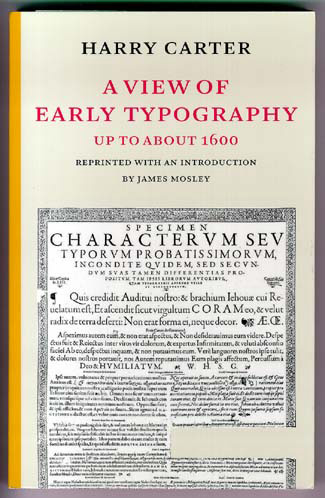
One of the clearest, most informative books about early typography is back in print.
Not many books with scholarly footnotes, and a title that begins "A View of...", would be considered must-have resources for the modern graphic designer or type user. After all, how much of the minutiae of cutting metal punches in Renaissance France or Reformation Germany will come in useful when you're faced with a deadline for that product catalog or annual report? But Harry Carter's book, "A View of Early Typography: Up to About 1600," recently republished by Hyphen Press, is the exception. If you care anything about the history -- the context -- of the craft we all practice, then you'll be richly rewarded by reading this book.
Carter deals quietly and calmly with his subject, in a written voice that must recall his spoken voice (the five main chapters were originally given as lectures at Oxford in 1968) and that is direct, clear, and utterly un-fussy. I have no idea what Harry Carter was like in person (he died in 1982), but I can imagine sitting comfortably in a room with him and -- apart from the necessary apparatus of a slide presentation (the talks were illustrated, as the book is) -- simply listening to him talk.
Title page of the original edition
His subject is the first hundred and fifty or so years of making and using movable type. More specifically, he is interested in how you can tell what types were used in early books, who cut them and cast them, and what that can tell us about who they were and where they came from. Carter is looking at a very specific set of crafts, but he puts the story in the context of its time and place: western and central Europe at a moment of intense cultural revival, political striving, and violent religious confrontation. Being a printer or a punchcutter or a type founder in those days was not necessarily a safe job.
"The Face Comes Loose From the Metal"
Carter's opening chapter, "The Technicalities of Type," starts off with the famous first line, "Type is something that you can pick up and hold in your hand." At the time he wrote, before digital type and when phototypesetting was just becoming popular, this was already a point that he felt it was important to make. Speaking of those who study old books, he went on: "Bibliographers mostly belong to a class of people for whom it is an abstraction: an unseen thing that leaves its mark on paper. For their convenience it has long been the practice to talk about a typeface, meaning, not the top surface of a piece of type, nor even of many pieces of assembled type, but the mark made by that surface inked and pressed into paper." In the following pages, Carter explains how type was actually made, not just mechanically but historically, and how the various tasks involved got divided up, and later brought together again.
One of his points is that type foundries, which we think of as "where type gets made" and which we have morphed into today's digital foundries, started out as a bunch of separate jobs being done by different people in several businesses. I have never read a better explanation of what it meant to cut punches, to use them to make matrices (impressions of what's carved on the end of the punch), and to put each matrix into an adjustable mould and use that to cast type. It wasn't until the middle of the 16th century, according to Carter, that these tasks started to be done under the same roof. There was a lively trade in punches, and in matrices, as well as in finished type, across much of Europe. In this process there was also a great deal of room for variation, intentional or otherwise, which is how a popular type design might spread across several countries, but the "same" typeface might look different when used by each city's printer.
Early French types, including a New Testament in French rather than Latin.
Fewer Forms, More Readers
Carter's next two chapters, "Diversity of Letter-forms in Print" and "The Establishment of Common Idioms," explain the enormous variety in the styles of handwriting then current -- often different styles written by the same person for different purposes -- and how this first got translated into a bewildering variety of type styles, then later got narrowed down into a few standard styles (partly as a result of the centralization of type-founding) used for standard purposes. It wasn't just a matter of "blackletter in Germany, roman and italic in Italy"; in an age when much of the printed matter had a propaganda purpose, or at least a few political implications, the style of type in which it was presented made a difference.
The fourth chapter, "Latin and Vernacular," gets into the way printing and type were used to disseminate culture, and the implications of whether it was done in Latin or in the local tongue -- and the expectations that readers had about which typeface would be used for each. In 1527, King François I of France ordered that a French translation of Thucydides' "History" be printed, as part of a program for "enriching, magnifying, and publishing the French language." The translator, who was also a diplomat and a churchman, "recommends the literary use of French as an aid to national aggrandizement and the consolidation of the king's possessions." As Carter points out, this is precisely what was done.
Cutting Letters
Carter concludes with "The History of Typefounding and Punchcutting," which goes into a lot of detail but he uses it to show how ideas, tools, and small pieces of metal moved around Europe. He also adds a "Supplement on Italic," which was not one of the original lecture series. Italic began as a separate style of type, used to set entire books, based on common forms of literary handwriting in Italy; only in the late 16th century did italic start to be subservient to roman, used as a complementary but secondary typeface, until, "After 1600 no punchcutter offered a Roman face without a companion Italic." And there, at the end of the 16th century, Carter stops.
Steel punches and a variety of typefaces in use.
"A View of Early Typography" is generously illustrated, with 84 numbered plates at the back of the book; the captions carefully note whether the examples of printed types shown are at their original size or have been reduced. There's a page of clearly drawn diagrams showing the parts of a piece of type, as well as photographs of moulds and punches and matrices; there is also a chart of the old named type sizes (long before they were standardized, much less given numbers in points), and at the end a very useful map of the printing centers of Europe in 1476.
Harry Carter's book has been out of print for years, so it's a delight to have this new, well-made edition, done as a facsimile of the original printing, with a new introduction by the equally erudite and clearly writer James Mosley and a few additional notes that either correct errors in Carter's text or add more recent information. (Oddly, they missed one mistake in the original: the reference on page 124 to "Fig. 83" should clearly be to Figure 84, the final figure in the book.) Like most Hyphen Press books, this one is printed and bound in a way that makes it comfortable to hold and to read, and that ought to make it last a long time.